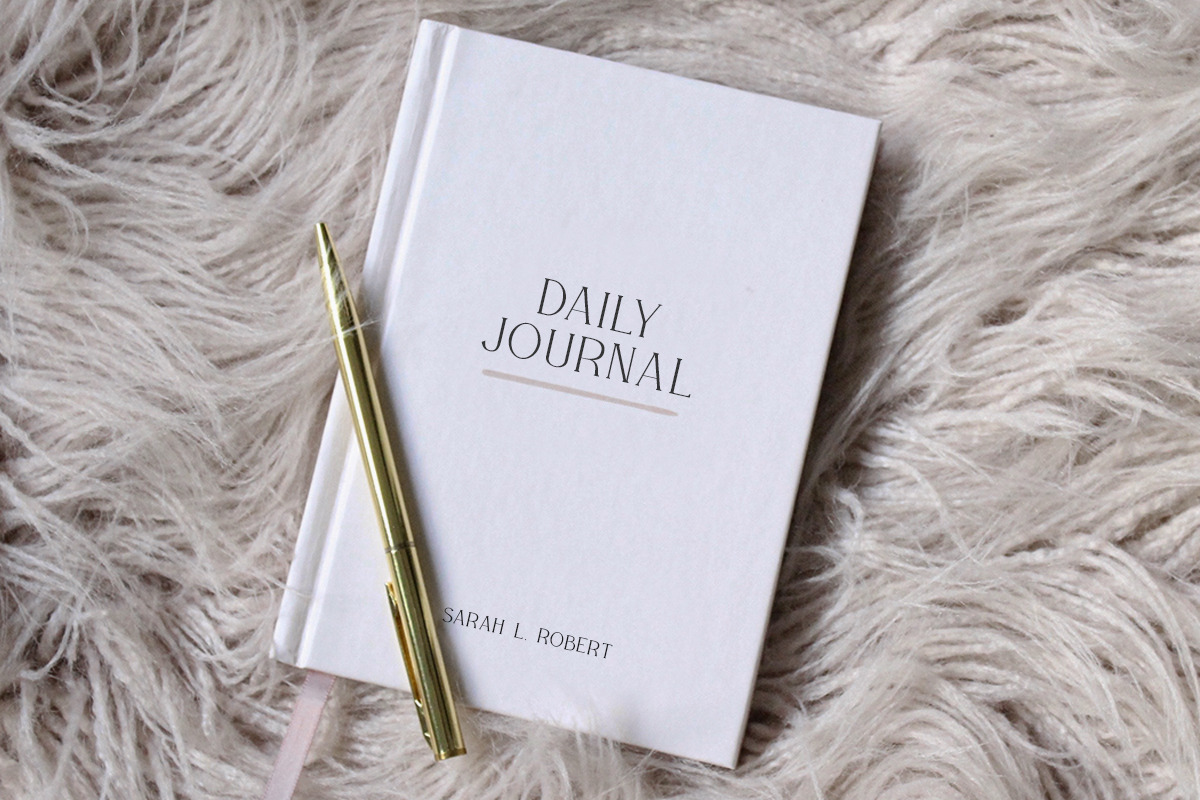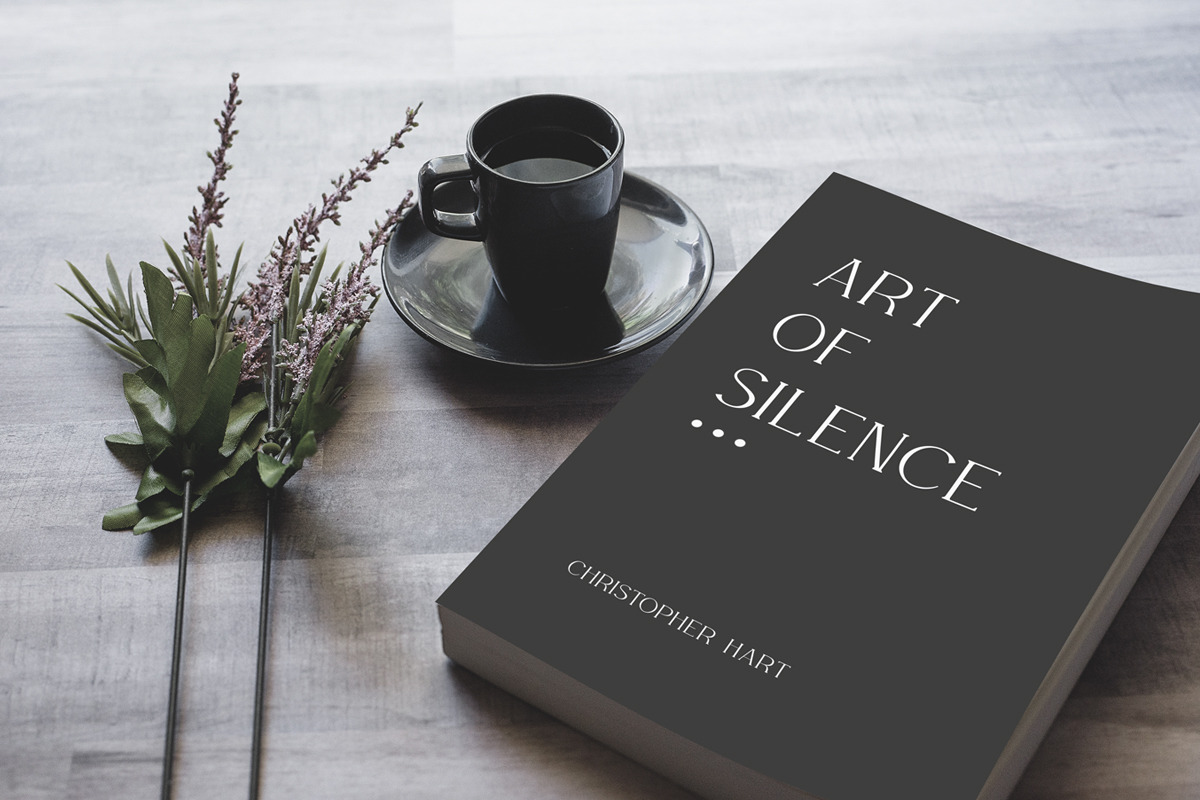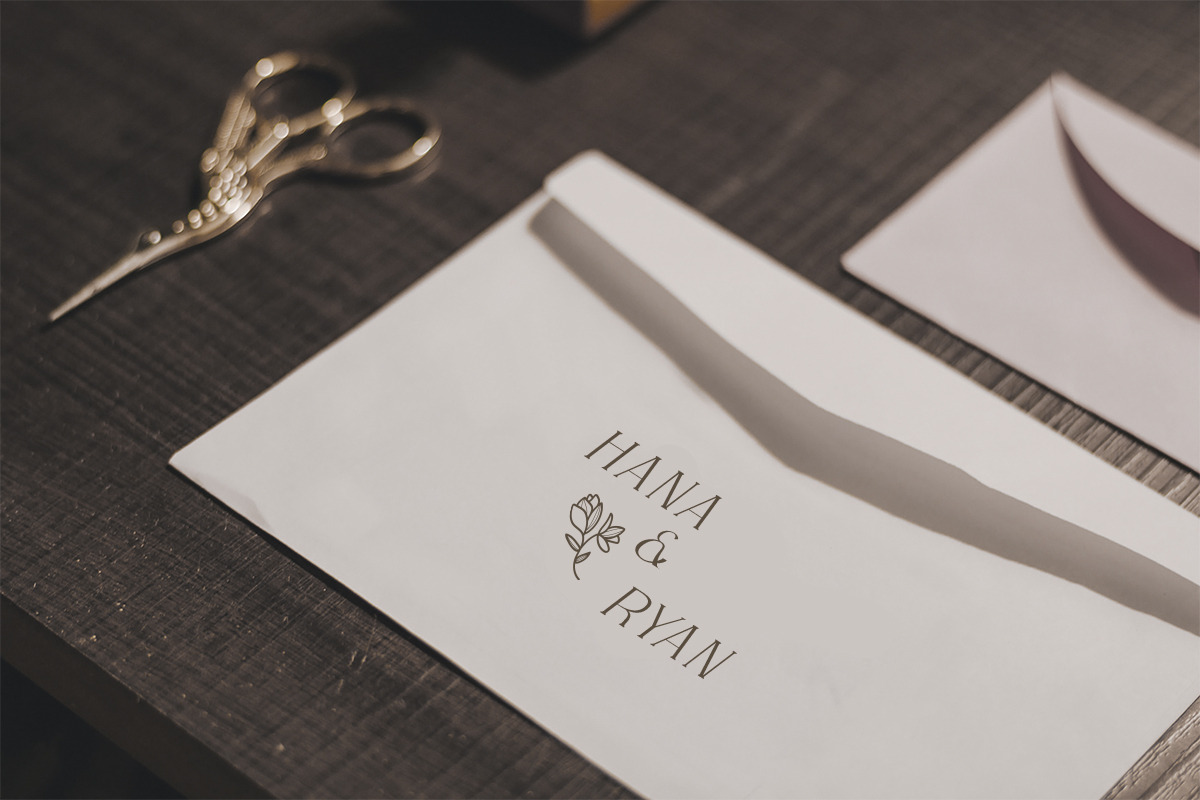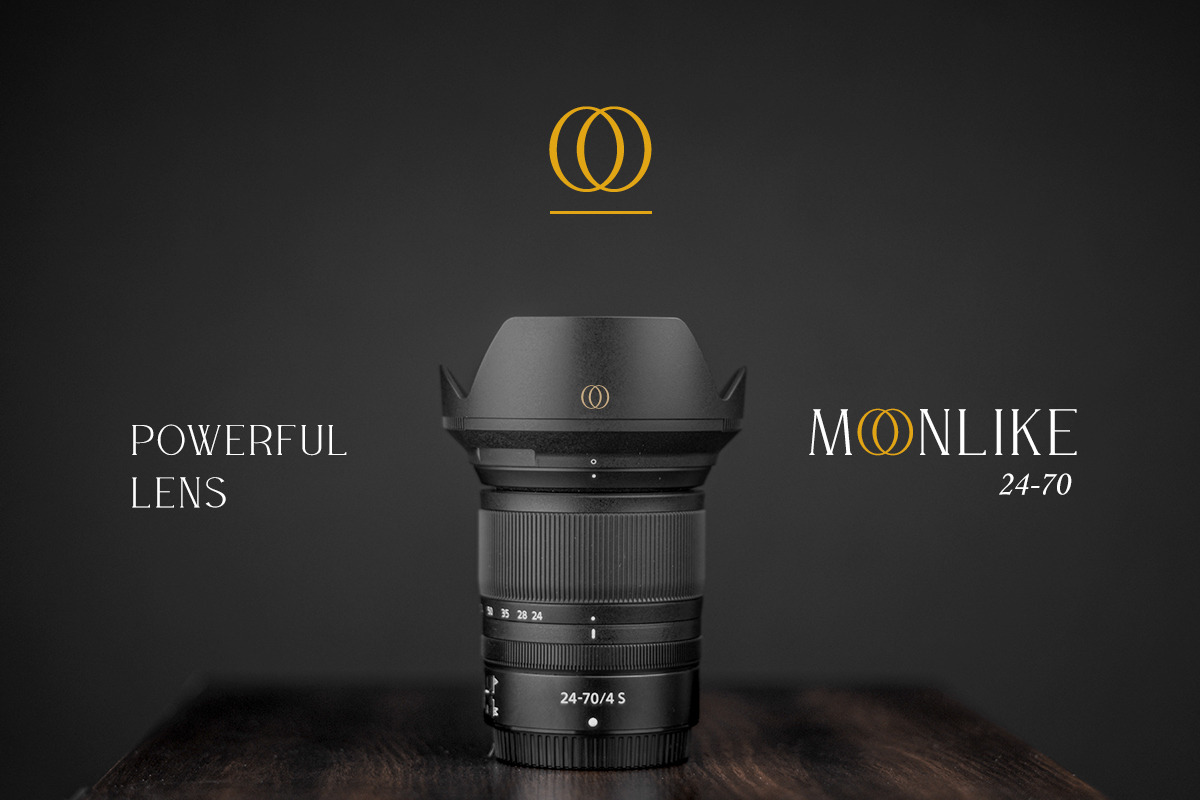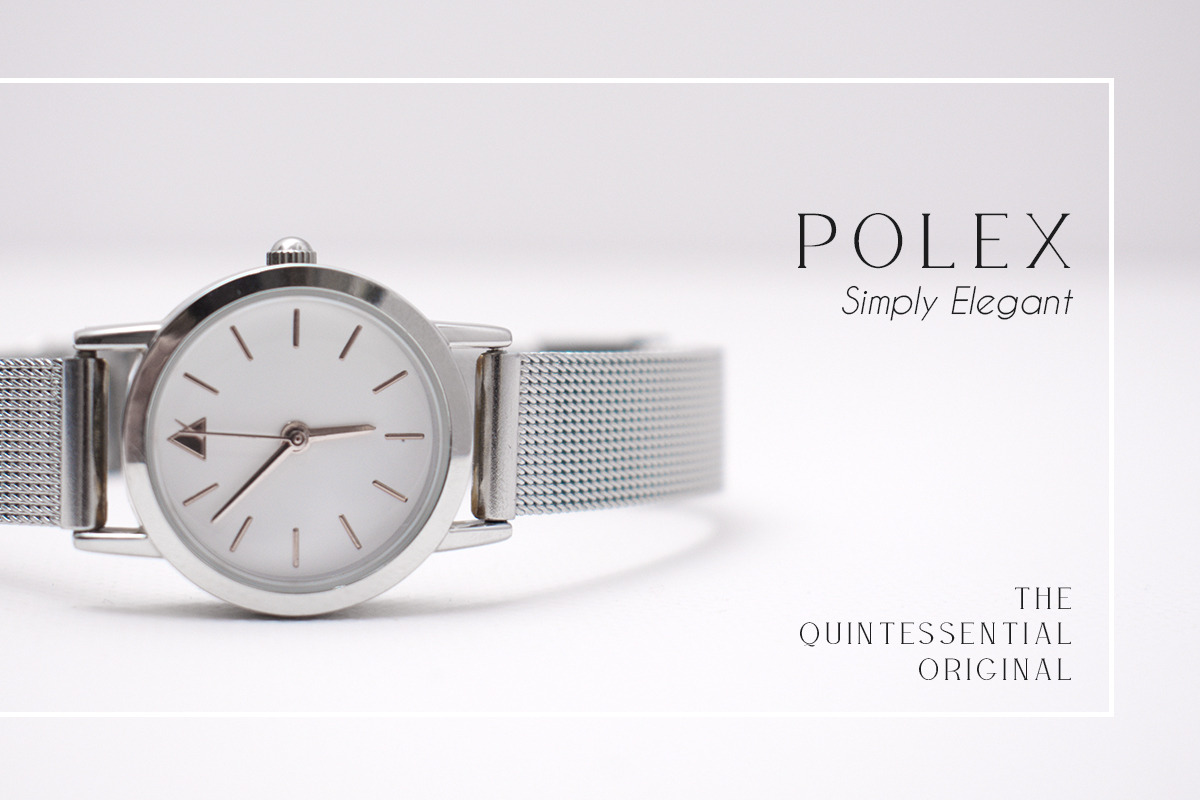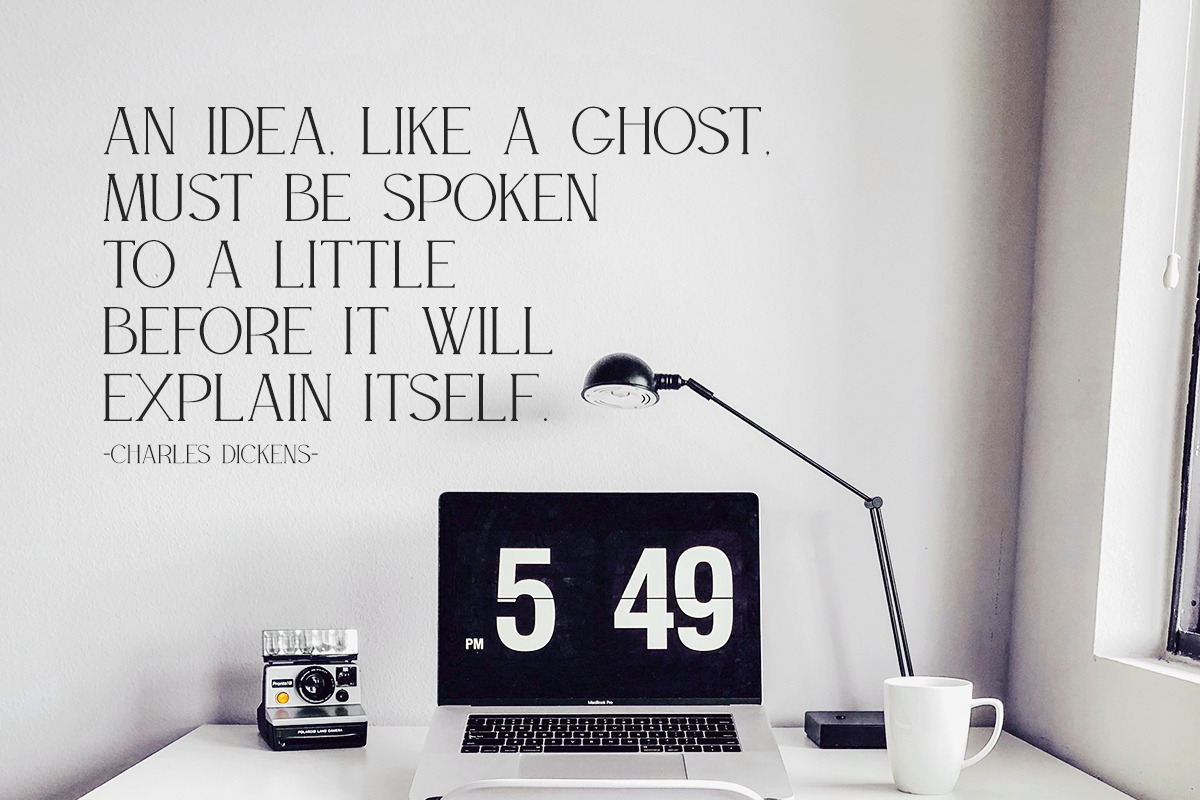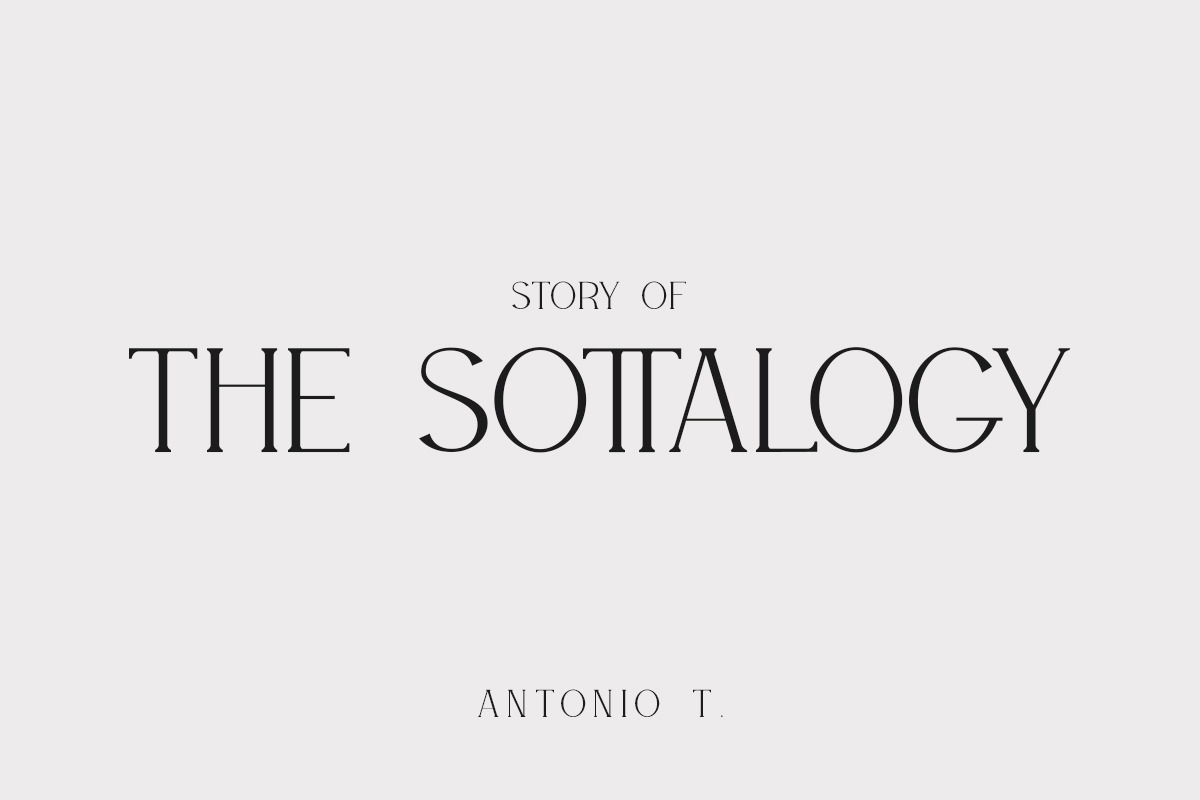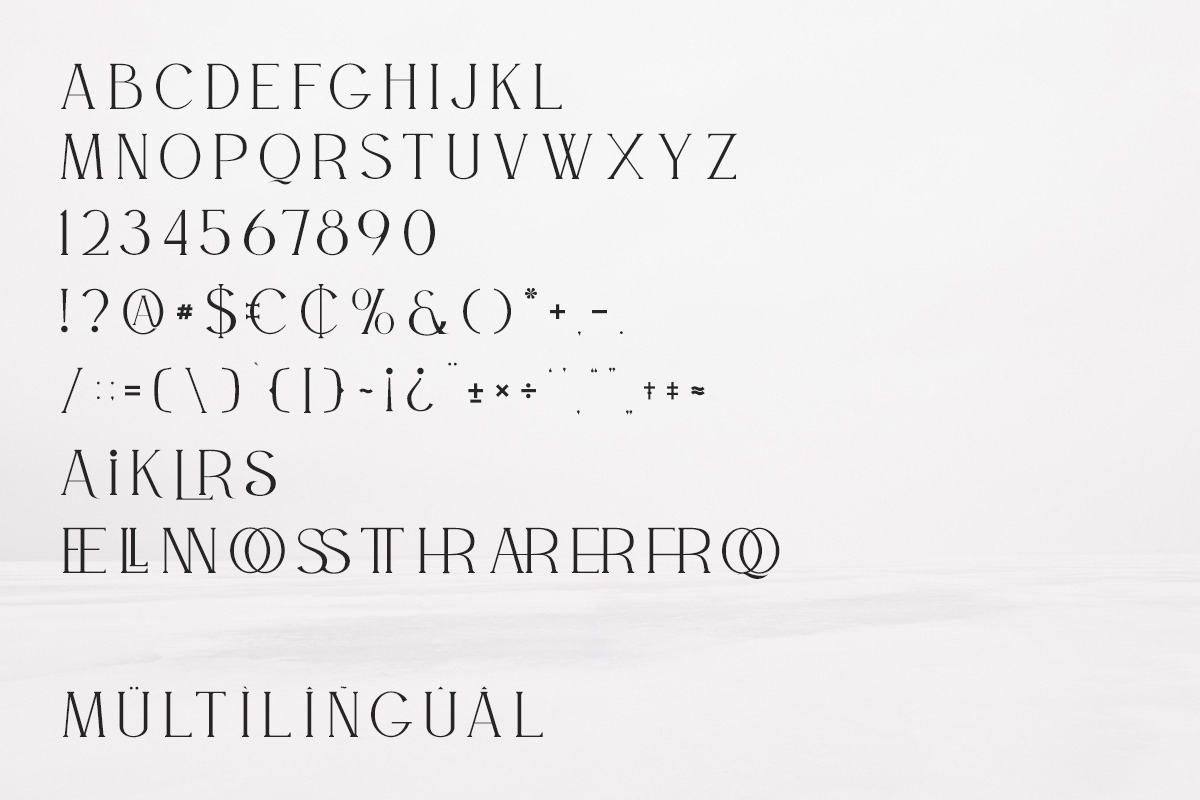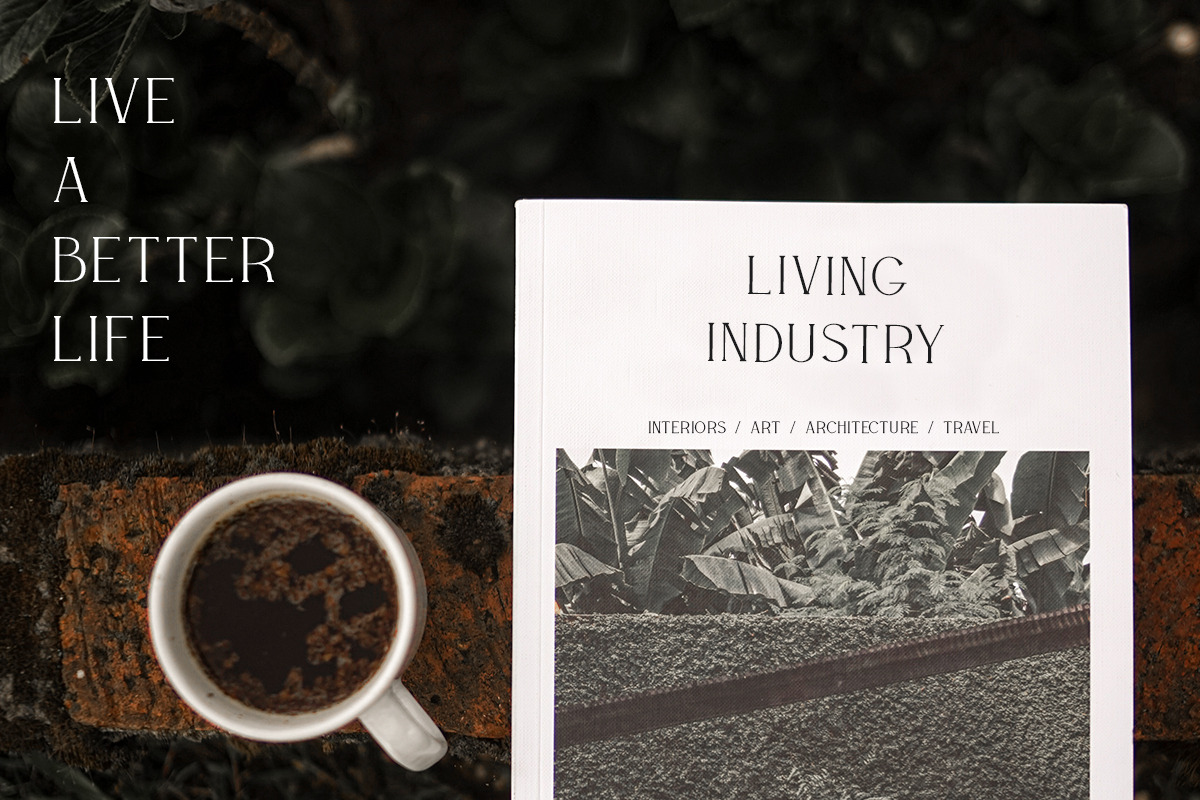
WILLSON - Clean Serif
Say hello to Willson - Clean Serif Font, Willson designed with a modern and clean style. It's suitable for various designs, such as posters, banners, logos, book covers, headings, printed products, merchandise, social media, and more. Find out more ways to use this font by taking a look at the font preview.
- 6 Alternates
- 11 Ligatures